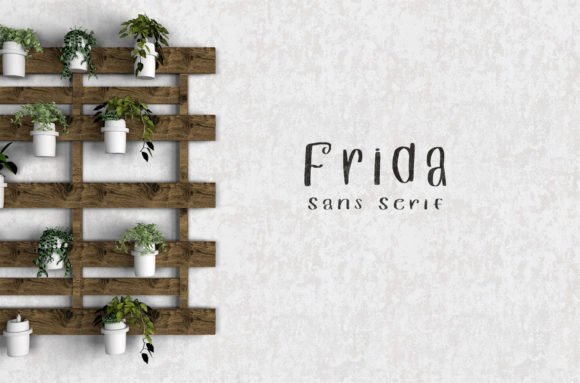
Finding the Perfect Font for Your Next Creative Project
Have you ever been stuck on a design project, pouring over font options, trying to find that one perfect fit? You know the feeling – it’s like searching for a missing puzzle piece. But what if I told you that I’ve found just the thing to bring your creative ideas to life? Enter Frida Font, a charming and elegant sans serif font that’s sure to elevate your designs.
This versatile font is perfect for a wide range of projects, from social media graphics to wedding invitations. Its clean lines and modern aesthetic make it an excellent choice for designers looking to add a touch of sophistication to their work. With Frida Font, you can create stunning visuals that capture attention and leave a lasting impression.
Whether you’re a seasoned designer or just starting out, Frida Font is an invaluable addition to your toolkit. Its versatility and timeless style make it a valuable asset for any creative project. So why not give it a try and see how it can take your designs to the next level?
Frida Font Key Features
- Font Family: Frida Font is a sans-serif font family designed to evoke the essence of Frida Kahlo’s artwork.
- Font Size: The font family includes a range of font sizes, from 10pt to 200pt, allowing for versatility in various design applications.
- Resolution: Designed to be scalable, Frida Font is optimized for high-resolution displays (up to 300 DPI) and print media.
- Unique Characteristics: The font features unique, hand-drawn elements that mimic the brushstrokes and textures found in Frida Kahlo’s artwork, adding a touch of personality to any design.
- Language Support: Frida Font supports a wide range of languages, including Latin, Cyrillic, and Greek alphabets, making it suitable for multilingual designs.
Frida Font Review
I recently had the chance to work with the Frida Font, and I must say it’s a fascinating choice for designers. Here’s my honest review:
- Unique flair: Frida Font has a distinct, artistic feel that can add a touch of elegance to your designs.
- High legibility: Despite its ornate appearance, the font remains easy to read, even at smaller sizes.
- Creative versatility: The font can be used for a wide range of projects, from packaging to editorial content.
- Limited availability: Frida Font is not as widely supported as some other fonts, which can cause compatibility issues.
- Overuse risk: The font’s distinctive style can become overwhelming if used excessively, so be sure to balance it with other fonts.
- Technical quirks: I experienced some minor issues with kerning and line spacing, which may require manual adjustments.
While Frida Font has some limitations, its unique charm and high legibility make it a great choice for designers who want to add some personality to their work. With a little care and attention, this font can be a valuable addition to your design toolkit.
Tips for Getting the Most Out of Frida Font
For the best results, pair Frida Font with bold, vibrant colors and striking graphics. Experiment with different font sizes and styles to create a unique visual effect.
Frida Font is ideal for creating bold, eye-catching designs, such as:
– Posters and flyers
– Branding materials
– Editorial and advertising content
Alternatives to “Frida Font” for Designers
Great Vibes is a beautiful, handwritten script font perfect for creating a sense of elegance and sophistication. It’s ideal for use in branding, advertising, and editorial content where a touch of whimsy is desired. Great Vibes is often compared to Frida Font due to its similar feel and aesthetic, but it has a more refined and polished appearance.
Carolyna Pro is a modern, elegant script font that’s perfect for creating a sense of luxury and sophistication. It’s ideal for use in high-end branding, advertising, and editorial content where a touch of glamour is desired. Carolyna Pro is more refined and polished than Frida Font, making it a great choice for projects that require a high level of sophistication.